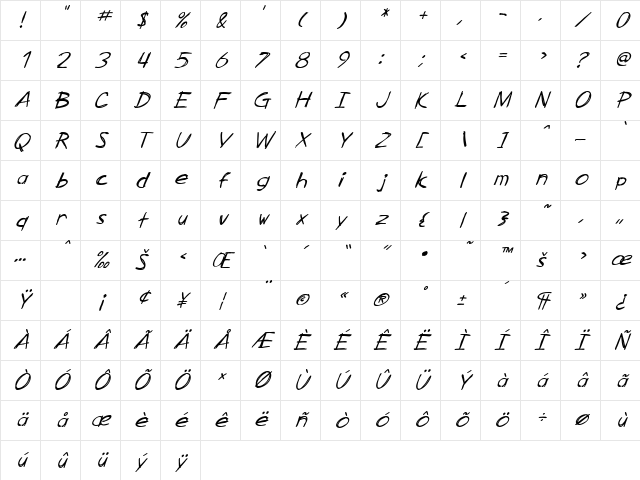
SF Zimmerman Italic Free Font
SF Zimmerman Italic
Design Context for SF Zimmerman
SF Zimmerman is a composed and adaptable typeface that performs quietly and consistently across a wide range of design contexts. The slanted form adds forward momentum and visual energy.
Pro Tip: Use SF Zimmerman for emphasis, pull quotes, and subheadings where its slanted energy can add rhythm to the layout.